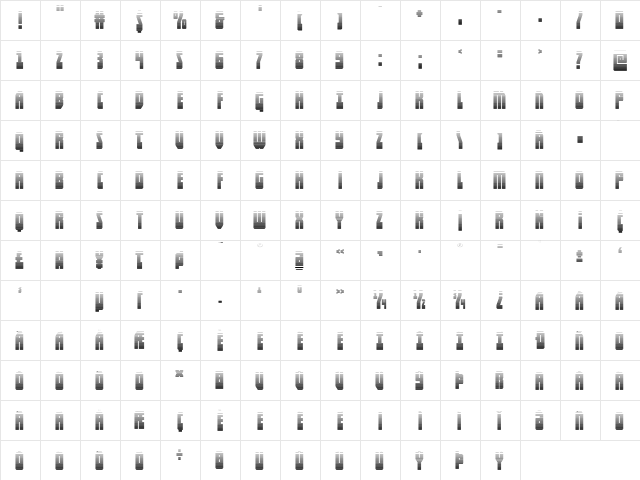
Elastic Lad Expanded Gradient Regular
Design Context for Elastic Lad Expanded Gradient Typeface
Elastic Lad Expanded Gradient is a composed and adaptable typeface that performs quietly and consistently across a wide range of design contexts.